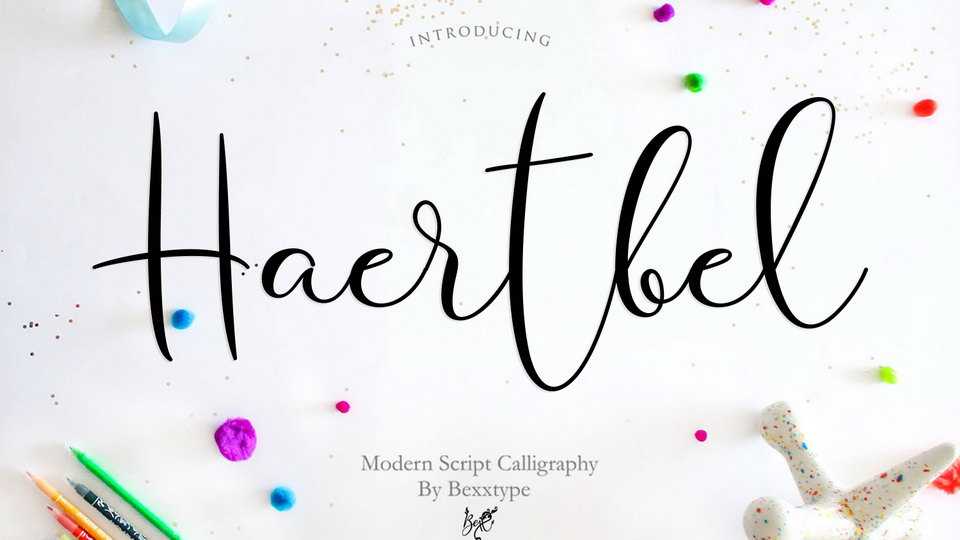
Download Haertbel Script, a lovely handwritten font with a beautiful dancing baseline, great for wedding decoration, cards, letters, fashion, apparel and other craft projects.
Designer: Bexxtype